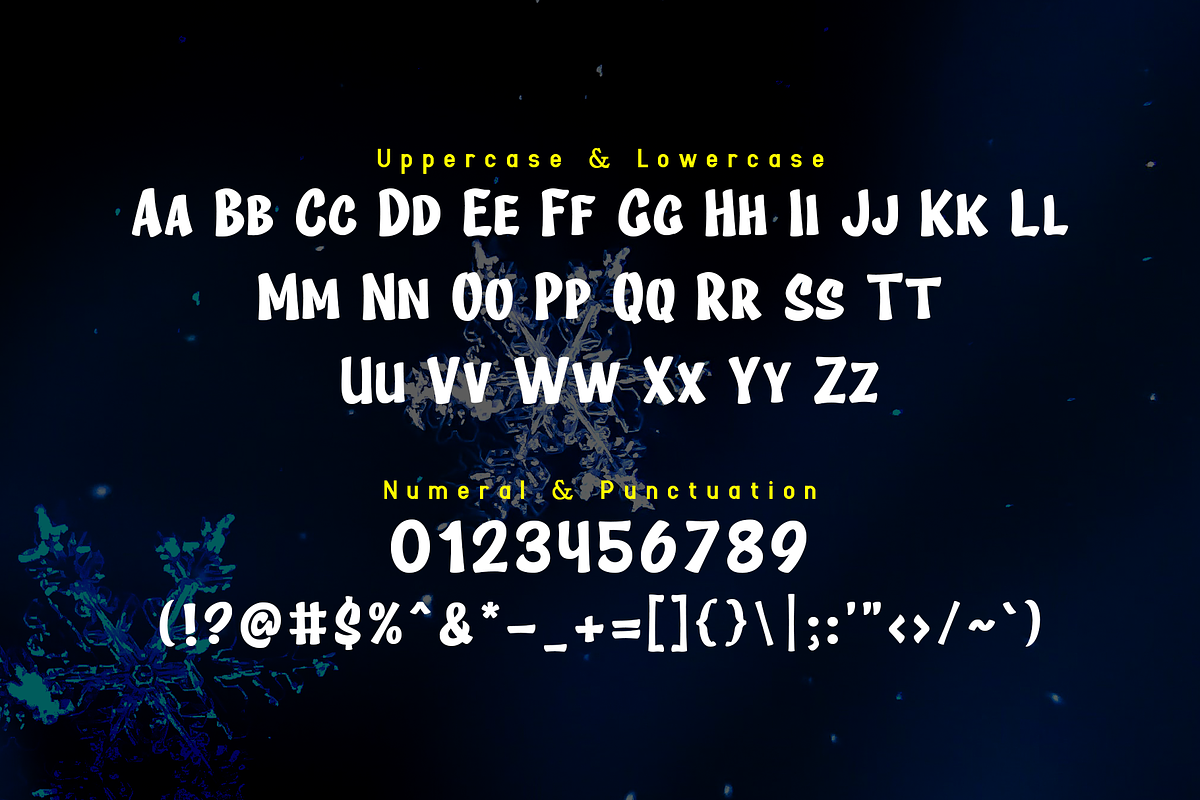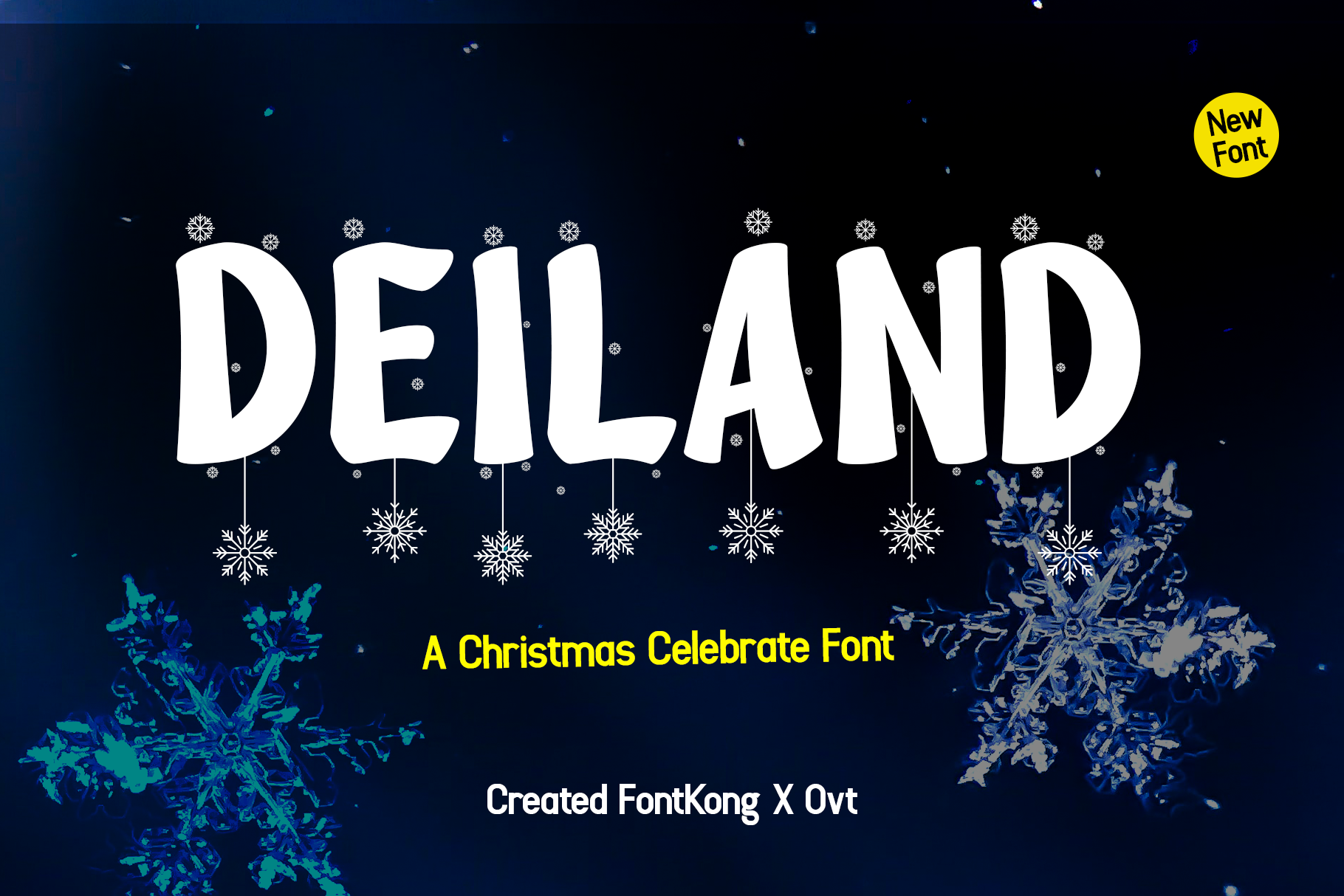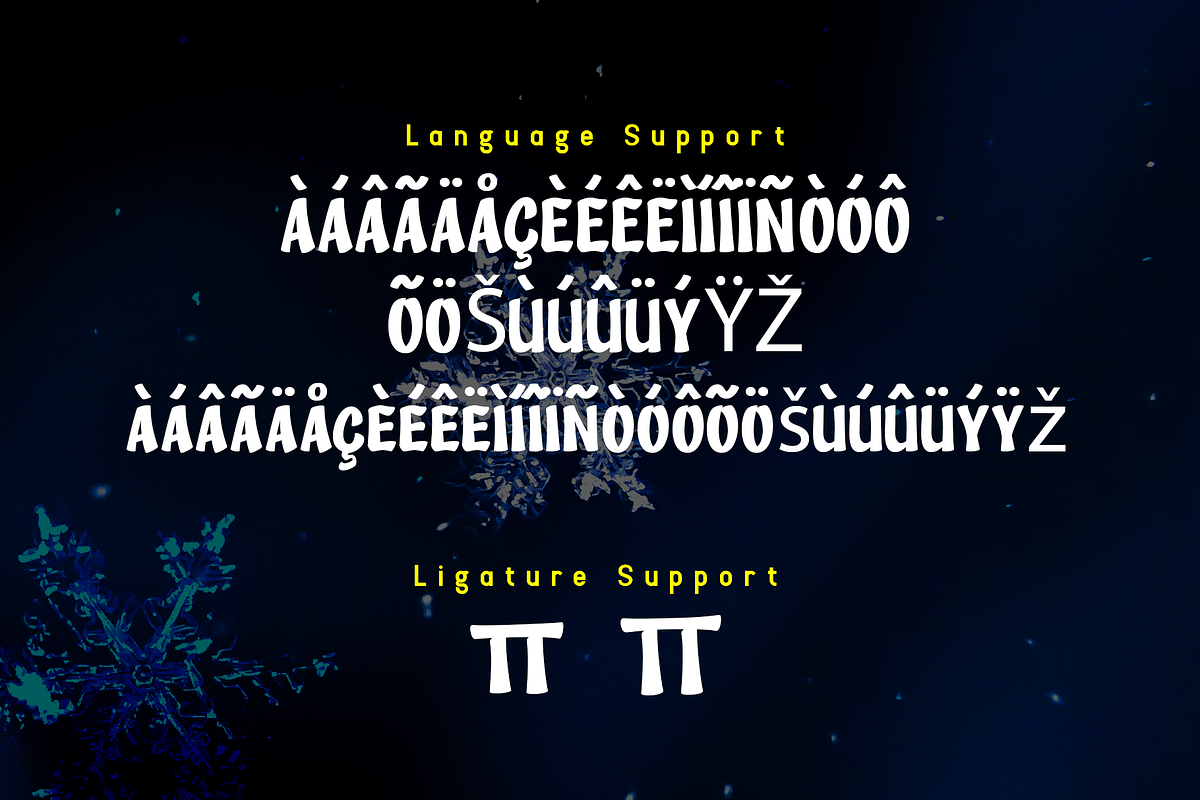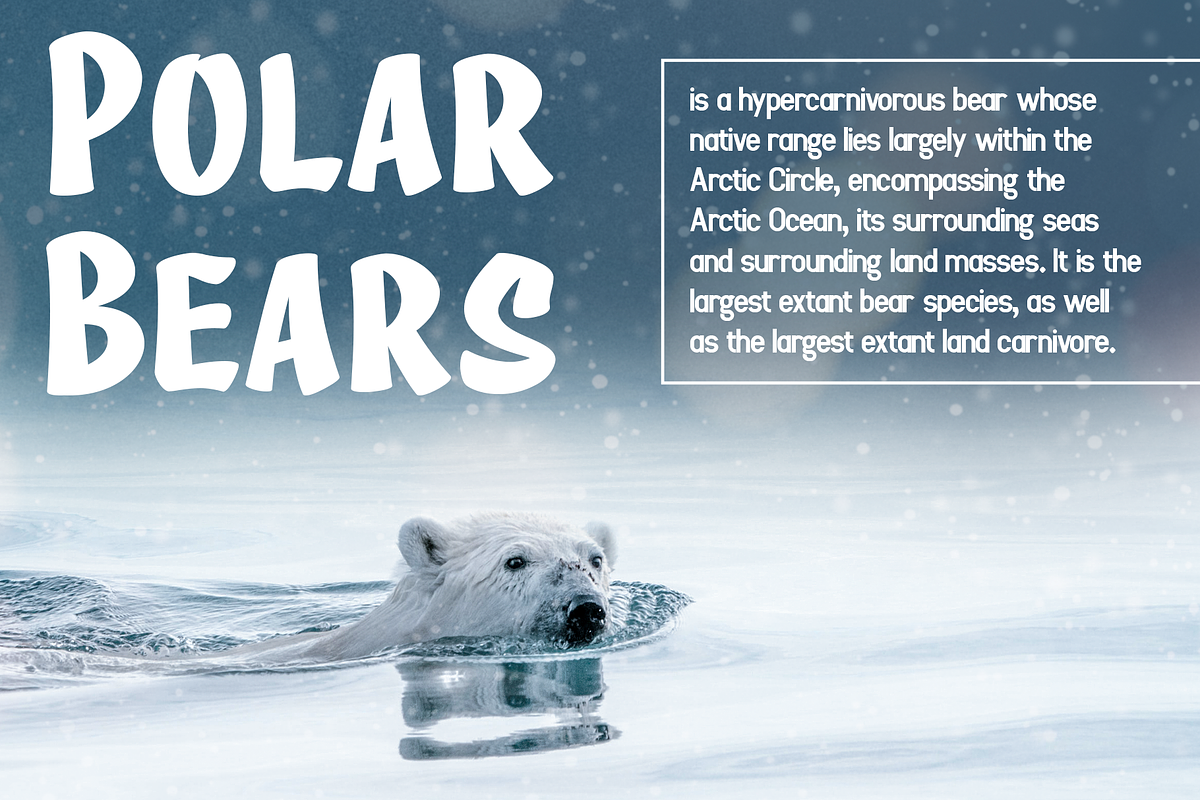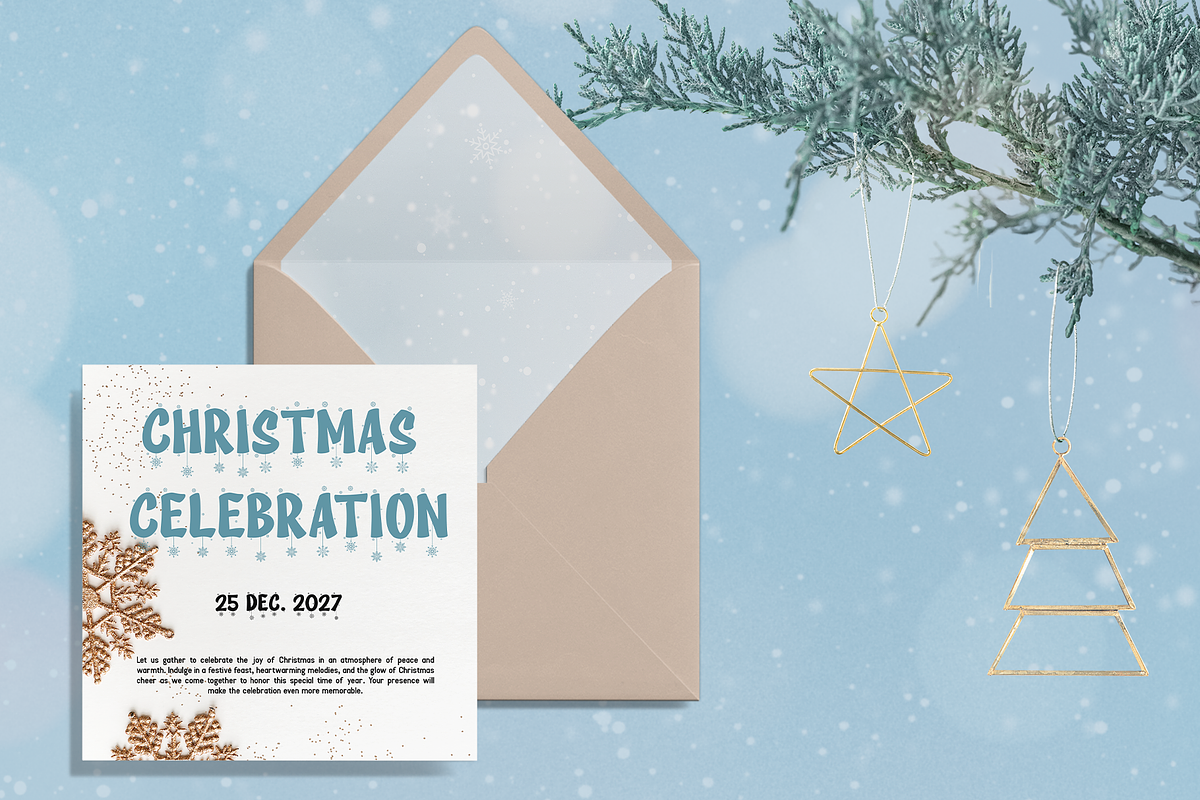
Deiland - A Christmas Celebrate Font
Deiland is a festive and charming Christmas celebrate font designed to bring the holiday spirit to your design projects. With its playful curves and joyful letterforms, Deiland is perfect for holiday cards, cheerful posters, festive invitations, and seasonal packaging. This font captures the essence of Christmas cheer, ensuring your work stands out with a warm and celebratory style.
Crafted with holiday magic in mind, Deiland features whimsical and friendly characters that offer excellent readability and visual appeal. Its festive design makes it ideal for display purposes, providing a lively and memorable presence. The font’s versatility allows it to adapt seamlessly to various design contexts, from digital screens to printed materials, making it a valuable asset for any designer aiming to create joyful and heartwarming visuals.
Elevate your holiday design projects with Deiland, a font that embodies the spirit of Christmas celebration. Its unique style and adaptability make it an essential addition to any designer’s toolkit for crafting vibrant and engaging holiday designs. Enhance your work with Deiland and experience the joy of festive typography.